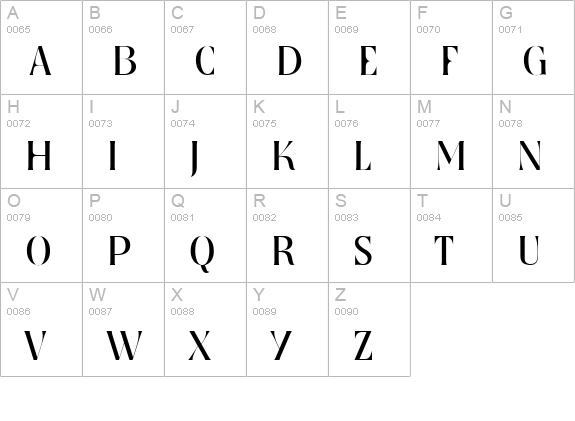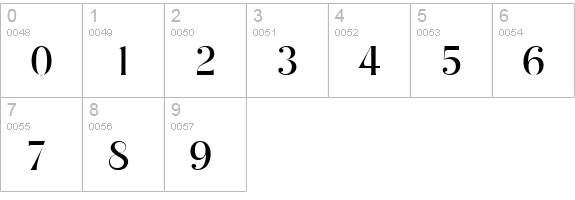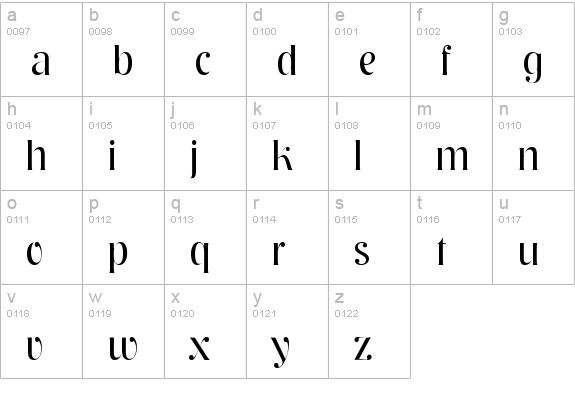
Tennessee Light SF is a refined, elegant variant in the Tennessee typeface family \xE2\x80\x94 well suited to elegant body text, refined sub-headings, and luxury branding.
Tennessee Light SF is a stunning font that effortlessly combines elegance and modernity. Its sleek and slender design makes it perfect for a wide range of creative projects, whether it be branding, advertising, or editorial design. The clean lines and delicate curves of this font create a sense of sophistication and professionalism, making it an ideal choice for any design that requires a touch of refinement. What sets Tennessee Light SF apart is not just its stunning aesthetics, but also the fact that it is available for free. Yes, you read that right – this exquisite font can be freely downloaded at FontsMarket.com. This means that designers and creatives of all backgrounds can access and utilize this font without any financial barrier. With Tennessee Light SF, there are no limitations to your creativity. Whether you are working on a personal project or a client's brief, Tennessee Light SF is sure to elevate your designs to new heights. Its versatility allows it to effortlessly adapt to various design styles, ensuring that it seamlessly integrates into any visual composition. From logos and headlines to body text and invitations, this font can do it all. With its generous x-height and legible letterforms, Tennessee Light SF guarantees readability, even at smaller sizes. This ensures that your message will be effectively communicated to your audience, without any compromise on style or visual impact. The carefully crafted details and balanced proportions of this font create a harmonious and captivating visual experience. So why wait? Unleash your creativity and download Tennessee Light SF for free at FontsMarket.com. This font will not only enhance your designs but also save you from the hassle of searching for the perfect font. With Tennessee Light SF, you have a reliable and beautiful typeface at your fingertips, ready to bring your ideas to life. Don't miss out on this incredible opportunity – get your hands on Tennessee Light SF today and take your designs to the next level.